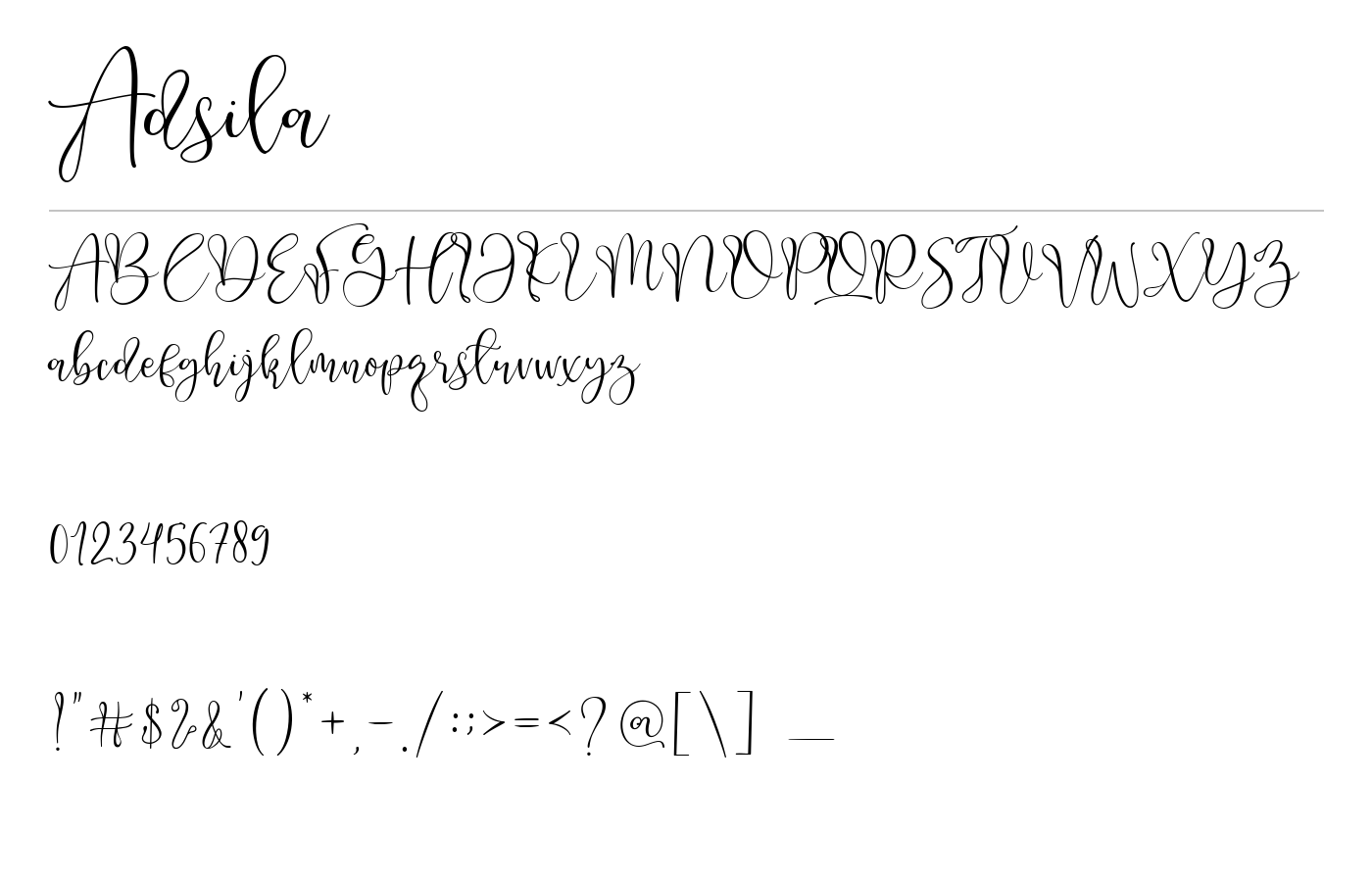
Adsila is an elegant and delicate script font featuring thin, flowing strokes with graceful loops and swashes that lend it a sophisticated, hand-lettered feel. Its light weight and high contrast combined with stylish uppercase and lowercase characters make it ideal for invitations, branding, or any design seeking a touch of refined charm and personality. This font works beautifully in headlines and decorative uses where an artistic and elegant impression is desired.
Adsila Font
About Adsila Font
| Font family | Adsila Font |
| Designer | Reystudio |